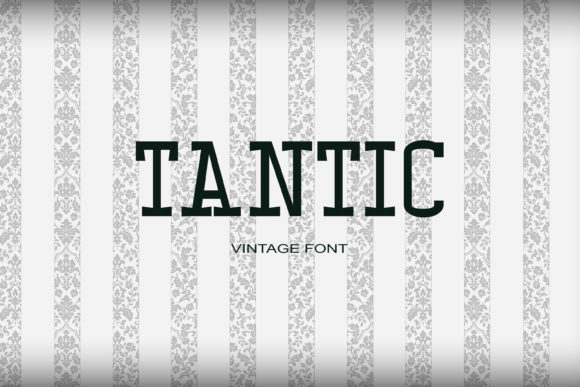
If you seek a font that exudes timeless elegance and sophisticated charm, look no further than Tantic, a captivating serif font crafted by the renowned DmDesignsStoreArt. With its graceful curves, delicate serifs, and unwavering consistency, Tantic promises to transform your designs into masterpieces that resonate with enduring beauty.
Step into a world of refinement and classicism as you embrace Tantic's timeless appeal. Its meticulously crafted characters, brimming with intricate details, evoke a sense of nostalgia and authenticity, transporting you to an era where typography was an art form. Whether you're designing a wedding invitation, a vintage poster, or a timeless logo, Tantic will infuse your creations with an air of sophistication and elegance.
Tantic's versatility knows no bounds, effortlessly adapting to a myriad of creative endeavors. Its understated beauty lends itself seamlessly to both traditional and contemporary designs, adding a touch of class to brochures, magazines, book covers, and even social media graphics. With Tantic at your disposal, the possibilities are limitless; unleash your imagination and let your designs blossom into works of art.
At the heart of Tantic's allure lies its ability to evoke emotions and create lasting impressions. Its classic serif structure exudes a sense of trust and credibility, making it an ideal choice for businesses seeking to convey a sense of tradition and heritage. Its delicate serifs and graceful curves add a touch of femininity and elegance, captivating audiences and leaving them with a lasting impression.
Indulge in the timeless beauty of Tantic and elevate your designs to new heights. Experience the joy of creating masterpieces that transcend time, leaving an enduring legacy of elegance and sophistication. Embrace the essence of classicism and watch as your designs bloom into works of art that captivate and inspire.